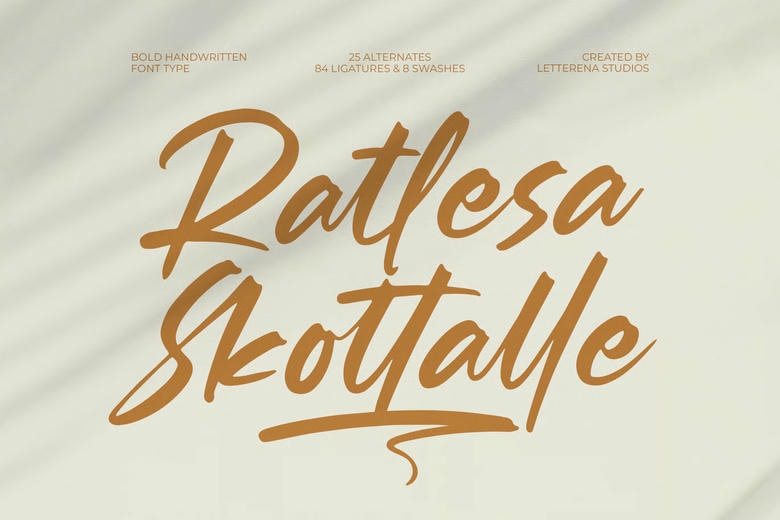
Ratlesa Skottalle Font
Ratlesa Skottalle – Bold Handwritten Font Type , from Letterena, is a Luxury Script font, suitable for any projects such as: logos, branding projects, homeware designs, product packaging, mugs, quotes, posters, shopping bags, t-shirts, book covers, name card, invitation cards, greeting cards, label, photography, watermark, special events, and all your other luxury and beautiful projects that need a Luxury Script taste.
Ratlesa Skottalle Handwritten Script Font